How to Choose a Font: A Science-backed Guide
If you've ever felt overwhelmed by font selection, we've created this article to help you find the clarity you need, as well as the evidence to back your choices. You'll find a list of questions to reflect upon as you select the right typeface for your project.
As any graphic designer will tell you, choosing the perfect font for a project can be a love/hate process. The more prevalent and permanent you expect the font choice to be, the more involved you become in the decision. It usually starts with a font family’s overall look and feel, but you can quickly find yourself in the depths of the type designer’s most detailed choices. Fortunately, many researchers have studied typography and its effects to uncover some strong arguments in favor of a given font for a specific type of project. Throughout this article, I will recap some of the most interesting findings hoping that these science-backed ideas will inspire your decision process. If you’ve ever felt overwhelmed by font selection, I’ve created this article to help you find the clarity you need as well as the evidence to back your choices. After each idea, I’ve included a few questions to reflect upon as you select the right typeface for your project.
1. Consumers are prone to choosing products whose meanings are congruent with their typography.
Fonts connote specific meanings and buyers tend to choose brands and products that signal what they’re about through their typography. A study by Doyle and Bottomley analyzed fonts according to three types of connotations: evaluation (good, pleasant, beautiful, happy), potency (strong, hard, rugged, potent, tough), and activity (active, fast, young, lively). In general, font appropriateness had a high correlation with brand choice. Specifically, their results showed that a typeface should be congruent with the product on the potency and activity dimensions. Questions to guide your font choices:
- Is my product’s potency (strength, hardness, ruggedness) conveyed by this type choice?
- Is my product’s level of activity (speed, youth, liveliness) conveyed by this type choice?
2. Natural fonts are pleasant and engaging, while remaining subtle.
In an article published by the Journal of Marketing, Henderson et al studied the relationship between a font’s design characteristics and the kind of emotional response it elicits in consumers. Responses were classified as pleasing, engaging, reassuring, and prominent. Design characteristics evaluated included elaborateness, naturalness, harmony, flourish, weight, and compressed. After having consumers respond to typefaces using impression measures, researchers discovered that natural had the largest effect in creating both pleasant and engaging experiences. Naturalness, as a design trait, refers to that irregular, organic, unplanned style some fonts exude, as opposed to a machine-made, geometric look. These kinds of fonts were also perceived as less prominent and more subtle. Other findings included the idea that harmony made fonts more reassuring, while elaborateness made them more unsettling. Questions to guide your font choices:
- Would my design benefit from a natural-looking typeface?
- Am I trying to project prominence or subtlety?
3. Typography affects consumers’ ability to understand ads.
Researchers at the University of Alabama and Miami University set out to understand the effects of typographic factors in advertising. The scientists exposed 265 participants to ad stimuli, measuring their reading speed both for an experimental and a control version of the ad. For faster readers exposed to an 8pt. font size, serifs and an increased x-height both improved text legibility. Questions to guide your font choices:
- Is this typeface legible? Is x-height sufficient and are characters properly kerned?
- What font size will this project’s content be set at? If small, would it benefit from a serif typeface?
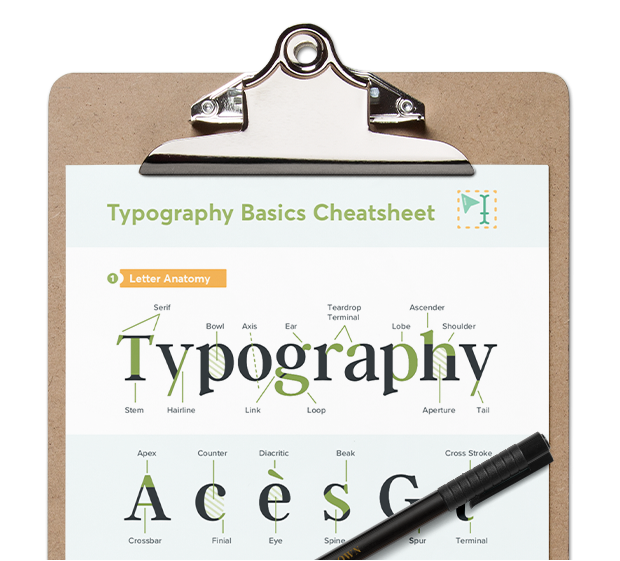
- Is this brand trying to portray a sense of warmth or distance? Friendliness or authority?
- If we’re setting type in all lowercase characters, does the typeface offer a distinctive style for that letter case?
- Could we test alternate versions of the brand name with all lowercase and all uppercase characters, with a sample of our target customers?
5. Certain fonts can convey sattire and humor more effectively.
Researchers at the NYU Department of Applied Psychology compared the effect of satirical readings set in Times New Roman and Arial. They concluded there’s an interaction between certain font traits and the emotional effect of text, finding that Times New Roman readings were perceived as angrier, funnier, and more satirical than those set in Arial. Questions to guide your font choices:
- Am I trying to emphasize humor or satire in this text?
- Does the font help reinforce the tone I’d like to associate with the copy?
6. Rounded fonts seem less threatening, hence more comfortable.
- Would this project benefit from a sharper or rounder type choice?
- Does the sharp contour of this font seem too intimidating or unapproachable for the target audience?
7. Serif styles are perceived as more elegant, sans-serif typefaces come off as fresh.
A study published by the Psychology and Marketing journal looked, among others, at the relationship between serif/sans-serif styles and certain affective descriptors. In general, subjects rated serif typefaces as more elegant, charming, emotional, gentle, and rich. In turn, sans-serif typefaces were perceived as fresh, high-quality, vital, smart, and readable. While both types of effects have their place in design, it’s important to be intentional about your type choice and the emotions it evokes. Questions to guide your font choices: